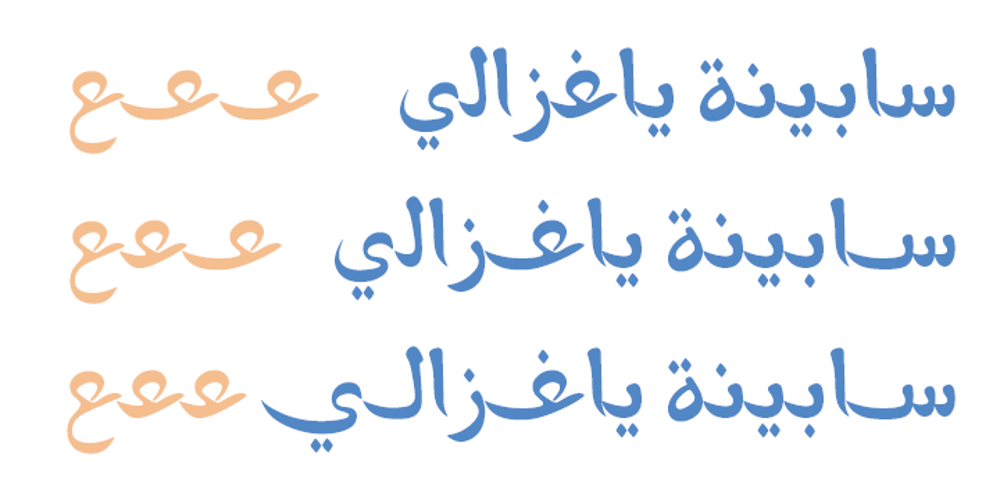
Sabine Font Family was designed by Saad D. Abulhab and published by Arabetics. Sabine contains 8 styles and family package options. Sabine is an Arabetic type design with a calligraphic flavor. It follows the guidelines of the Mutamathil Taqlidi type style with one glyph for every basic Arabic Unicode character or letter, as defined in Unicode Standards version 5.1, and one additional, final-position, glyph for each Arabic letter that is normally connected with other letters from both sides in traditional cursive Arabic strings. Sabine employs variable x-height values. It includes all required Lam-Alif ligatures and uses ligature substitutions and selected marks positioning but it does not use any other glyph substitutions or forming. Text strings composed using types of this family are non-cursive with stand-alone isolated glyphs. Tatweel (or Kashida) glyph is a zero width space. Keying it before any glyph will display that glyph isolated form. In Sabine Kashidah, Irsal, and Tasmim keying Tatweel (shift J) after certain glyphs will replace it with a long stroke glyph. In Sabine Tasmim, keying it a second time will replace glyph with a final form swash (Irsal) glyph. In Sabine Irsal all final forms are swash glyphs. Keying Tatweel before Alif Lam Lam Ha will display the Allah ligature. Sabine family includes both Arabic and Arabic-Indic numerals; all required diacritic marks, Allah ligature, in addition to standard English keyboard punctuations and major currency symbols. Fonts are available in regular and italic styles.